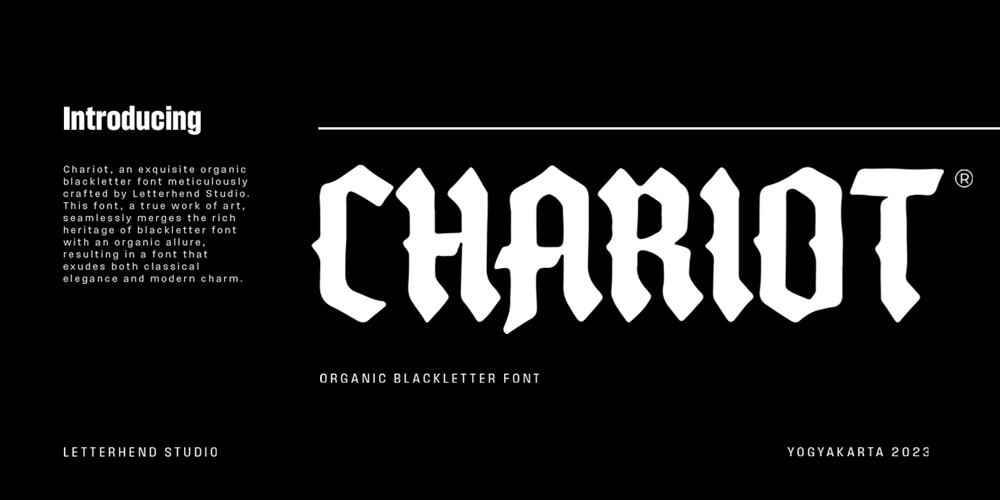
Chariot
Chariot font
Chariot Font Family was designed by Hendry Juanda and published by Letterhend. Chariot contains 1 styles and family package options. Chariot, an exquisite organic blackletter font meticulously crafted by Letterhend Studio, This font, a true work of art, seamlessly merges the rich heritage of blackletter font with an organic allure, resulting in a font that exudes both classical elegance and modern charm.Features : Uppercase & lowercase Numbers and punctuation Alternates & Ligatures Multilingual PUA encoded